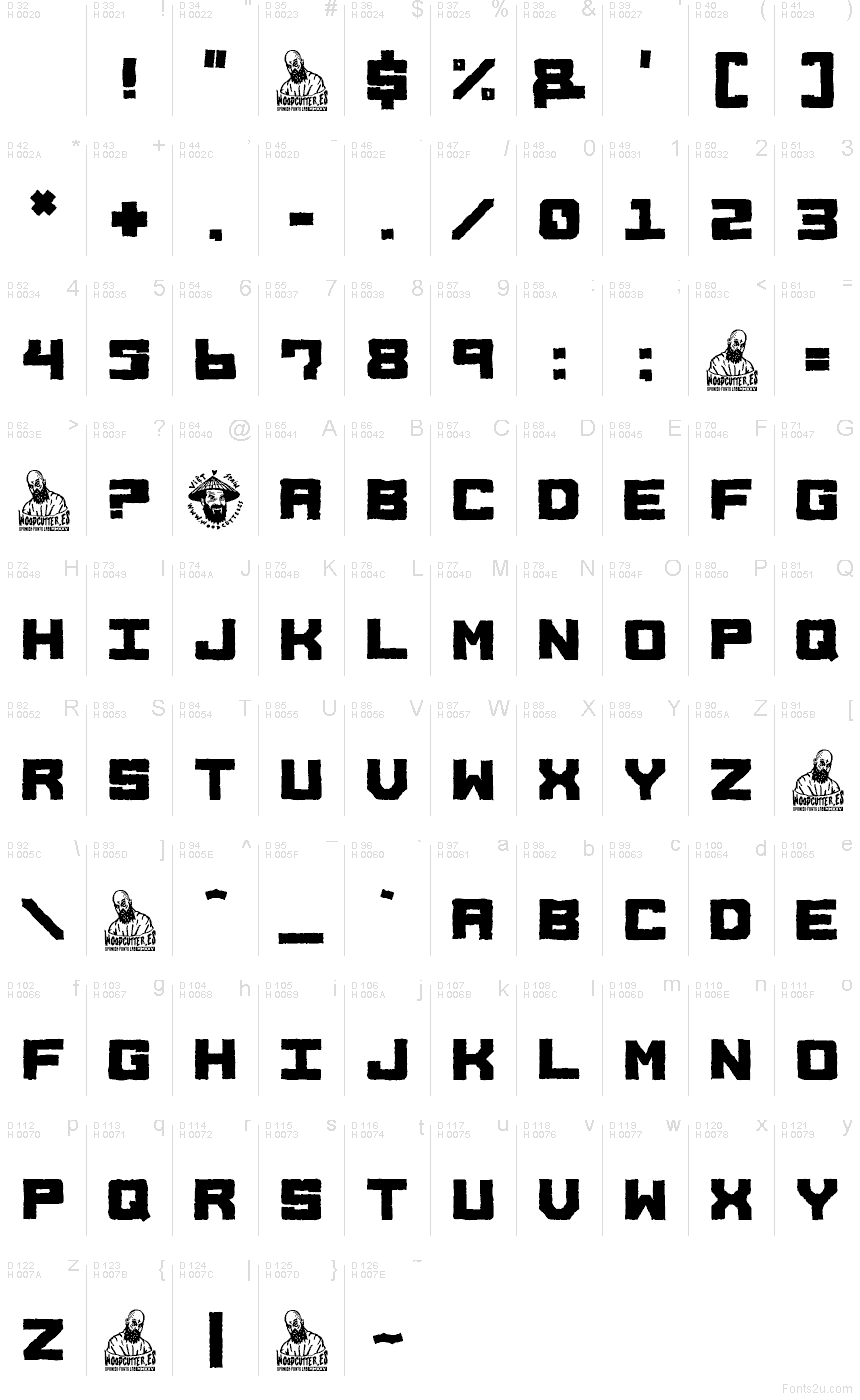
Viet Hardcore Black
Viet Hardcore Black font by Woodcutter is a free eroded display typeface in the Viet Hardcore family, built from thick, rectangular shapes that look beaten up by noise and grit. Its chunky, almost pixel-like letters feel like they’ve been stamped on concrete, chipped at the edges and worn down by volume and time. The tight spacing and blocky forms give your words a heavy, brutal presence that demands attention even at a glance.
Using Viet Hardcore Black, your designs instantly pick up a raw, underground energy that suits gig posters, metal or punk album covers, streetwear logos, flyered event promotions, stickers, and gritty game titles. This free font shines when you set it big and bold, then support it with a clean, simple sans serif for body text to keep everything readable but still aggressive.